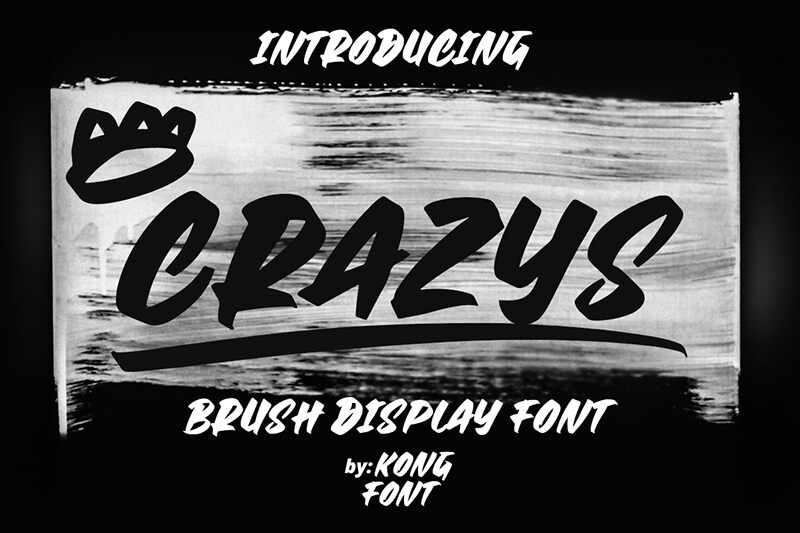
Crazys font by Kong Font is an expressive brush typeface designed for dynamic and energetic design projects. With its bold impression and artistic flair, this free font offers a modern and contemporary appeal, embodying the urban aesthetic. Its versatility makes it suitable for various creative applications, where making an impact is essential.
Crazys font can be used in designing posters, social media graphics, book covers, advertisements, music album covers, film titles, branding projects, packaging, website design, and event invitations. It's particularly fitting for projects that seek a creative, casual, and modern look.